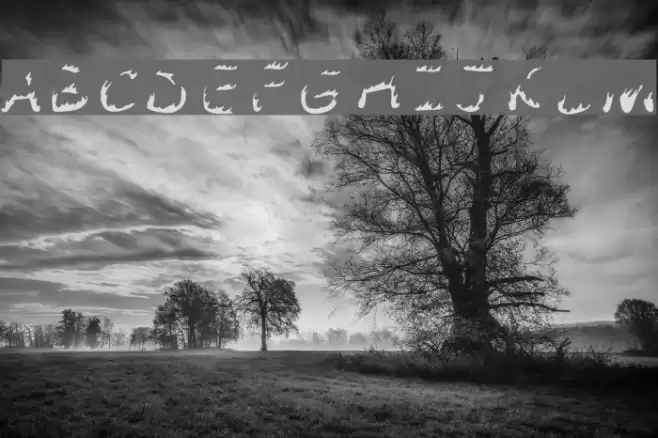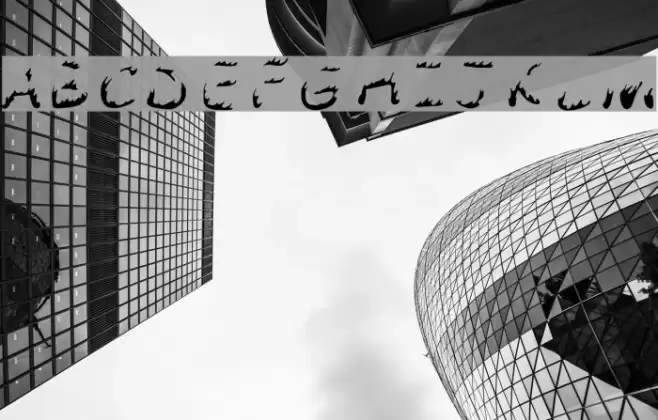
Comic Tragedy Flames Font
Comic Tragedy Flames Description
This font features a unique and dramatic design with characters that appear to be engulfed in flames. The letters have an irregular, jagged edge that mimics the flickering of fire, giving it a dynamic and intense appearance. The uppercase letters are bold and striking, with each character maintaining a consistent height and width, while the lowercase letters follow a similar style but with a slightly more subdued presence. The overall effect is both chaotic and artistic, making it ideal for projects that require a sense of urgency or excitement. The font's distinct style is perfect for creating eye-catching headlines or logos that demand attention.
A bold, flame-inspired font with jagged edges and a dynamic appearance from Uncategorized fonts.
- Proposed Projects: Ideal for use in posters, album covers, video game titles, and any design that requires a fiery, dramatic effect.